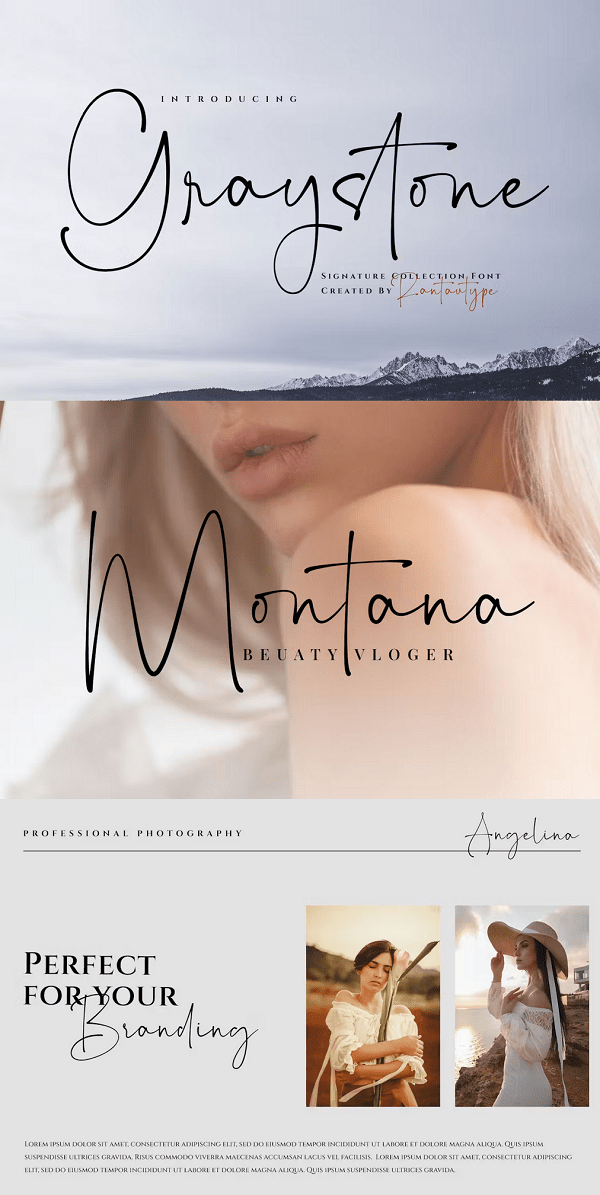
Graystone is signature font which can be interpreted professional with stylish and natural curve. We keep this font looks modern, minimalist, elegant, readable, stylish, catchy and easy to use. Graystone come with alternate, ligature and multilingual support.
Graystone is a beautiful choice for any creative endeavor, chic, lifestyle design such as logos, title, watermark on photography, cover, branding, display and magazine, wedding event, quotes, album cover, business card, corporate, business project and many other design project. Graystone here to make your work to high level!!!
Features
Standar character A-Z and a-z
Numberial and Functional
Ligature and alternate
Multilinggual support
Langguage support
Afrikaans, Albanian, Asu, Basque, Bemba, Bena, Breton, Chiga, Cornish, Dutch, English, Estonian, Filipino, Finnish, Friulian, Galician, Gusii, Indonesian, Irish, Italian, Kabuverdianu, Kalenjin, Kinyarwanda, Luo, Luxembourgish, Luyia, Machame, Makhuwa-Meetto, Makonde, Malagasy, Manx, Morisyen, North, Ndebele, Nyankole, Oromo, Portuguese, Quechua, Romansh, Rombo, Rundi, Rwa, Samburu, Sango, Sangu, Scottish, Gaelic, Sena, Shambala, Shona, Soga, Somali, Spanish, Swahili, Swedish, Swiss, German, Taita, TesoUzbek (Latin), Volapük, Vunjo, Zulu